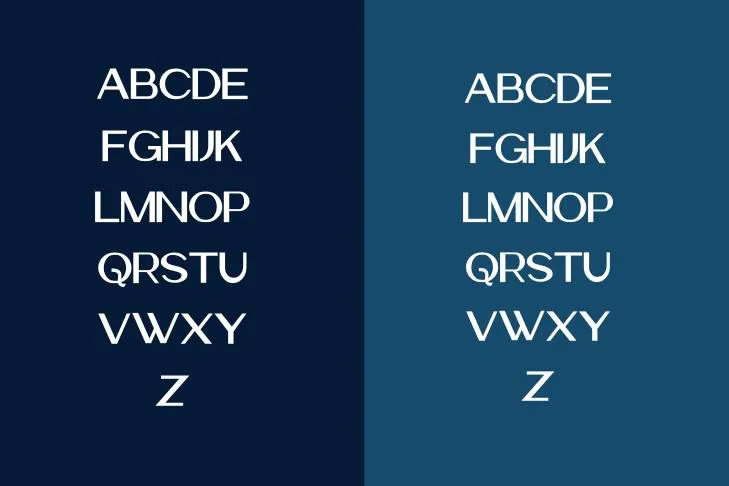
Introducing a beautiful Sans-serif typeface called Ganama font. Ganama Font is an elegant and distinctive typeface created by an Indian type graphic designer named Satya Rajpurohit. This contemporary Devanagari font is appropriate for use in both print and digital media purposes.
This versatile typeface is ideal for a wide range of creative projects including branding, logos, book covers, posters, and more. Moreover, the typeface is available in two variants: Ganama Regular and Bold. Its regular version is perfect for heading and subheadings whereas, Ganama Bold is a smooth and more prominent version of this typeface.
Characteristics of Ganama Font
This splendid and outstanding typeface is distinguished by its neat and well-organized geometric shapes, which make it easy to read and accessible. Its letter structure occupies a balanced proportion and thus provides legibility in both small and large text formats.
While maintaining the Devanagari script structure, this elegant typeface has a modern feel which makes it an ideal choice to be utilized for both print and digital media purposes. Moreover, this exquisite typeface includes Latin and Diacritical inscriptions and is inclusive of a complete range of character sets.
Name | Ganama Font |
Designer | Satya Rajpurohit |
Style | Sans-serif |
Creative Ways to Use Ganama Font
This amazing typeface can be used for a variety of projects, including publications like books and magazines as well as websites and mobile applications. Being extremely readable and versatile, it is suitable for branding and logo creations. It can also make a very well paired with omega sans font.
Furthermore, it draws attention and stands out from other fonts because of its distinctive appearance so, it can be employed for advertising and marketing initiatives. Its geometric shapes let you create incredible headings and subheadings or even the body content.
What type of font is Ganama?
Ganama is a sans-serif typeface. This font style has a modern and clean look. The letters are thin and the capital letters are large, which makes it easy to read from a distance.
Is Ganama an unprofessional font?
This is not an unprofessional font. It is a versatile typeface that can be used for a wide variety of projects.